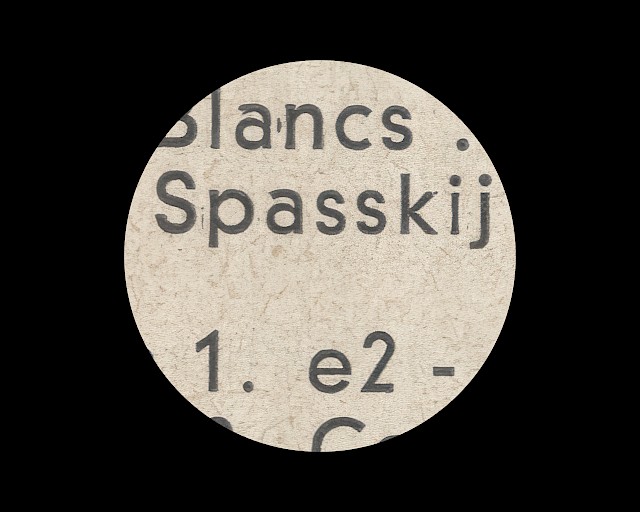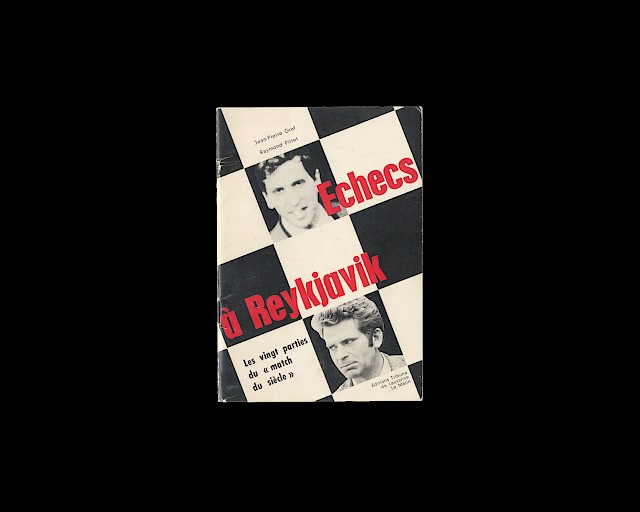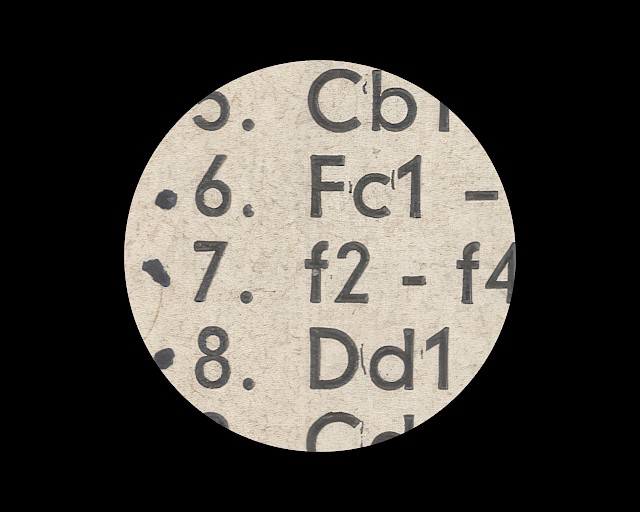
History
Echecs à Reykjavic, Editions Tribune de Lausanne ( 1972 )
ToRecord is a redesign of the font used to record all the chess games between Boris Spassky and Bobby Fischer in the almanac “Chess in Reykjavik”, published by the “Tribune de Lausanne”. With its simple structure, generous x-height, and semi-open terminals, ToRecord conveys a look that is both geometric and readable. The minimal variation in stroke weight, combined with significant variation in letter width — particularly noticeable in the uppercase letters — gives this typeface a graphic and effective appearance in both captions and headlines. Available in a wide range of weights, from Light to Black, the family is complemented by a monospaced Thin cut. Designed between 2017 and 2019, it was first released in 2019.